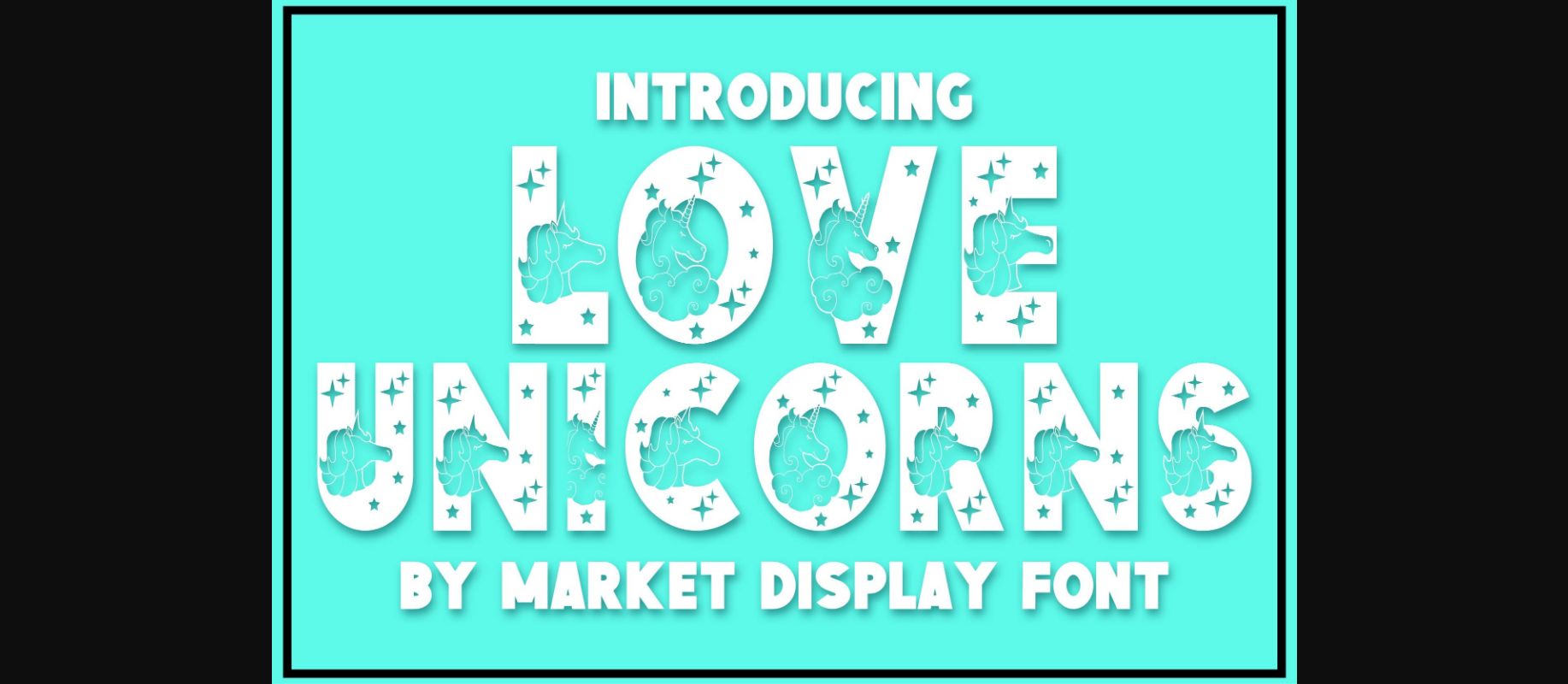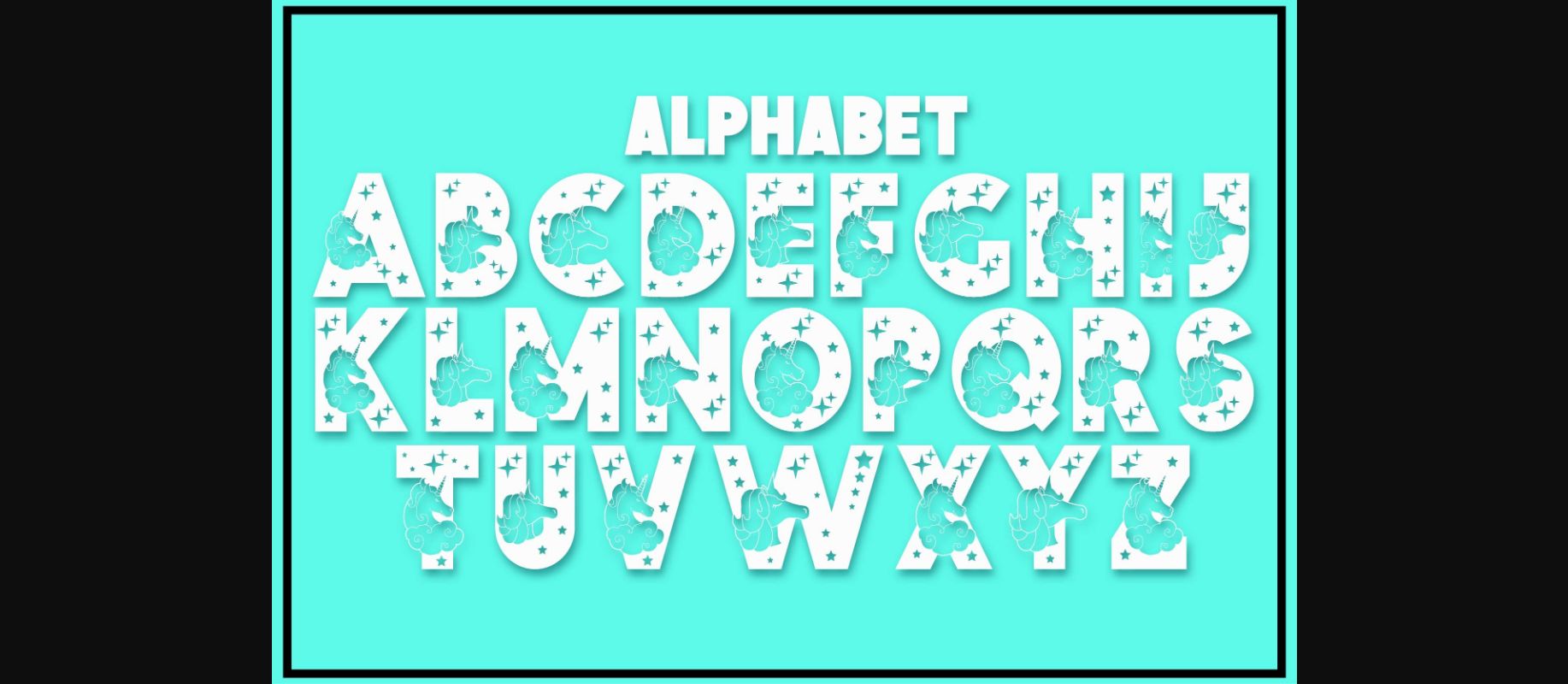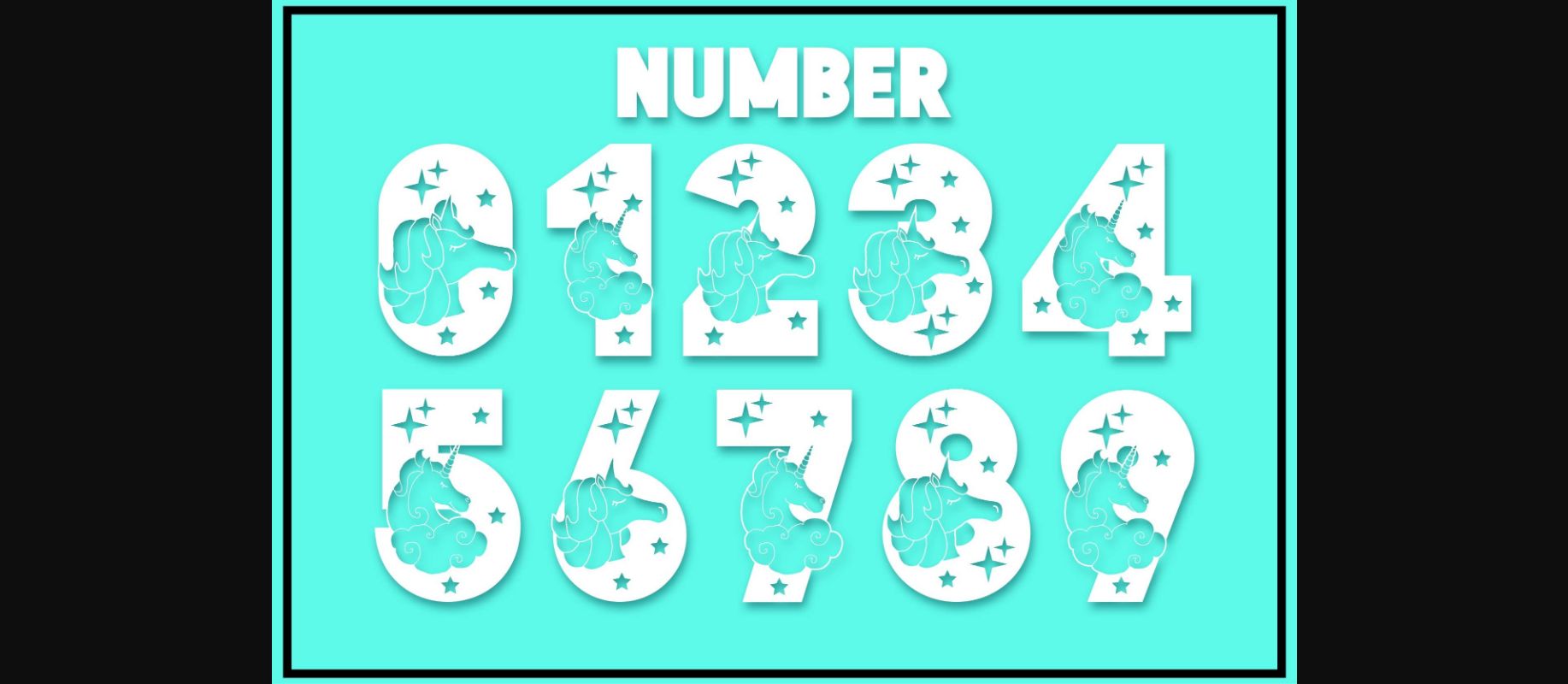
HomeDecorative FontsLove Unicorns Font Decorative Fonts Love Unicorns Font FacebookXPinterestWhatsApp 1 of 5 ... Love Unicorns Font Poster 2... Love Unicorns Font Poster 3... Love Unicorns Font Poster 4... Love Unicorns Font Poster 5... About Love Unicorns Font Love Unicorns is a fun, jolly, and incredibly charming decorative font. It embodies playfulness and authenticity and is the perfect choice for any children’s activity or school project. DOWNLOAD NOW People also explored Oceania Font Betterlove Font Nevada Font Amsterdam Font Shadow Box Font Roller Costter Font Abby Katty Font Spring Font Play Smile Font 450 0 TagsLove Unicorns Font Previous articleCrocodile FontNext articleLittle Pirate Font LEAVE A REPLY Cancel reply Comment: Please enter your comment! Name:* Please enter your name here Email:* You have entered an incorrect email address! Please enter your email address here Website: Save my name, email, and website in this browser for the next time I comment. Personal Use Free Manhattan Personal Use Free Read more about this font Bestlife Personal Use Free Read more about this font Kensin Personal Use Free Read more about this font Lion Teen Personal Use Free Read more about this font BLOG Free Fonts Risk: Why Free Fonts Can Be Dangerous for Designers Free Fonts Risk: Why Free Fonts Can Be Dangerous for Designers Using free fonts is a common practice in web and graphic design. However, the... To increase your work productivity, choose the most readable fonts. Elegant Wedding Invitation Fonts – Handwritten & Script Fonts Best Fonts for T-Shirt Design – Top 2025 Picks